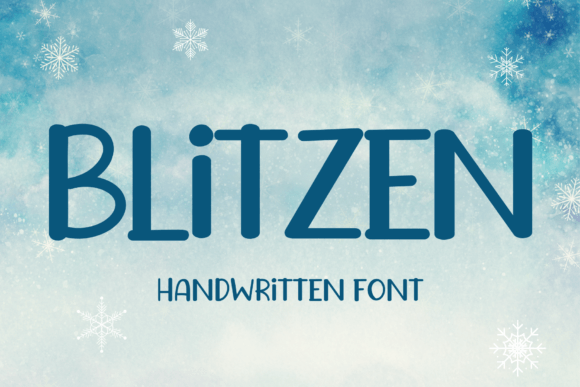
Introducing Blitzen Font, the ultimate choice for adding a touch of playfulness and authenticity to your designs! Created by the talented team at Brown Cupple Fonts, this fun handwritten font is all you need to elevate your projects and leave a lasting impression.
With its unique charm and versatility, Blitzen Font is the perfect companion for a wide range of creative endeavors. Whether you're designing a blog post, crafting a captivating logo, building a strong brand identity, or creating eye-catching advertisements, Blitzen Font has got you covered.
Imagine the impact of using Blitzen Font in your invitations and greeting cards. It effortlessly adds a personal and heartfelt touch, making your messages stand out and leaving a lasting impression on your recipients. Your loved ones will be delighted by the authentic and playful feel of each word.
Planning a special event? Blitzen Font is your go-to choice for creating stunning decorations. Its handwritten style adds a whimsical and magical touch to any setting, making your celebrations truly unforgettable. From banners to party favors, Blitzen Font will make every detail shine with creativity.
But the possibilities don't stop there! Blitzen Font is also the perfect companion for photo albums, adding a nostalgic and artistic flair to your cherished memories. Each page will come to life with the handwritten elegance of Blitzen Font, turning your photo collection into a work of art.
Not only does Blitzen Font bring a sense of joy and authenticity to your designs, but it also ensures your content is easily readable and engaging. Its legibility makes it an ideal choice for body text, enhancing the overall reading experience and captivating your audience from the first glance.